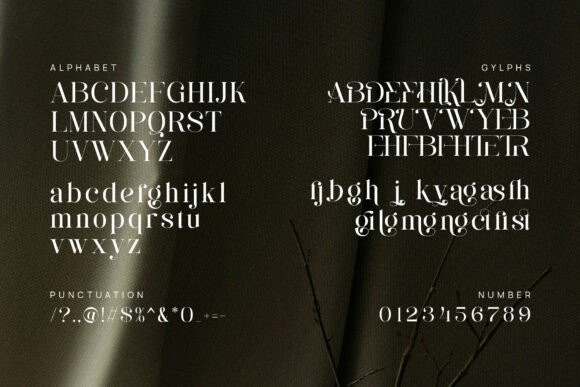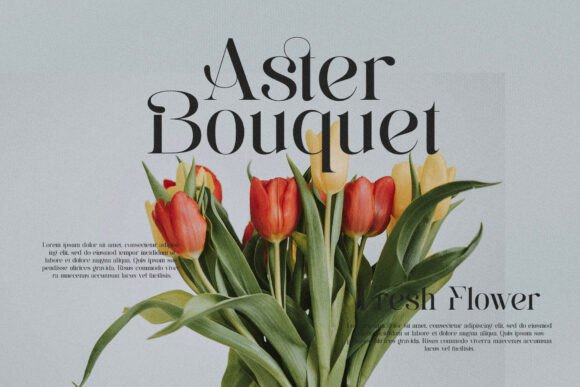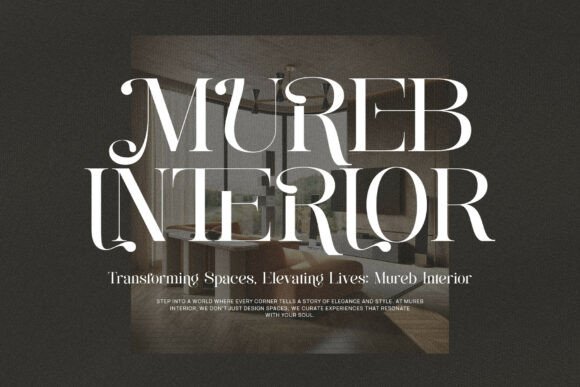
Introduction to Manglove Font
Remember that moment when you finally land a high-end client for your creative project? The rush of excitement and the pressure to deliver something truly exceptional? For designers, it’s all about creating an unforgettable impression, and that’s where the Manglove Font comes in – a luxurious serif font that exudes sophistication and timeless elegance.
Whether you’re working on a premium branding project, an editorials piece, or packaging design, the Manglove Font is an invaluable design resource that can elevate your visual presentation with ease. Its refined curves and sharp details make it an ideal choice for designers who want to create high-quality content that stands out from the crowd.
Key Features of Manglove Font
- High-quality, professional design perfect for creative projects and designs requiring a unique touch.
- Unique, hand-drawn style with a touch of elegance, ideal for adding a creative twist to designs and projects.
- Includes a range of glyphs and characters, including Latin, Cyrillic, and Greek alphabets, ensuring broad compatibility and usability.
Honest Review: Manglove Font
I recently stumbled upon the Manglove Font, and I must say it’s been a game-changer for my creative project. The high quality of this font is immediately noticeable, with its sleek and modern design making it a perfect addition to any project.
One of the standout features of the Manglove Font is its transparent background, which makes it incredibly versatile and easy to use. This design resource is perfect for designers looking to add a touch of sophistication to their work.
- ✨ High-quality design that’s perfect for modern projects
- ⚠️ Limited character set, which may not be suitable for projects requiring extensive typing
- ⚠️ Not ideal for use in situations where a bold or condensed font is required
Overall, I’m thoroughly impressed with the Manglove Font. Its high-quality design and transparent background make it a valuable addition to any designer’s toolkit. While it may have some limitations, I believe the benefits far outweigh the drawbacks.
Manglove Font is a unique and high-quality design resource that can elevate your creative project to the next level. This versatile font is perfect for designers and artists looking for a creative solution to add a personal touch to their work.
Tips for Getting the Most Out of Manglove Font
To get the most out of Manglove Font, use it on a transparent background to create a seamless design. You can also experiment with different font sizes and styles to add visual interest to your project.
Common Use Cases for Manglove Font
Manglove Font is perfect for designers and artists working on creative projects, including graphic design, digital art, and typography. It’s also great for creating custom logos, graphics, and other design elements.